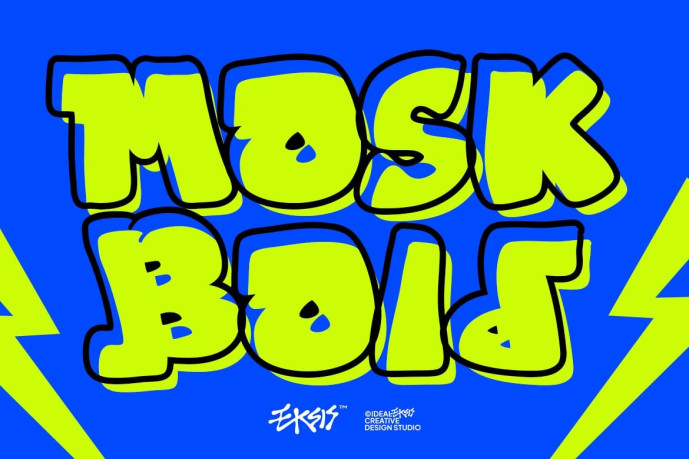
Mosk Bold Display Font
Designer: Idealx
Mosk Bold Display Font – This typeface features ultra-heavy, rounded letterforms reminiscent of classic bubble-style graffiti. The strokes are thick and uniform, with soft, bulbous terminals that create a sense of volume and playfulness.